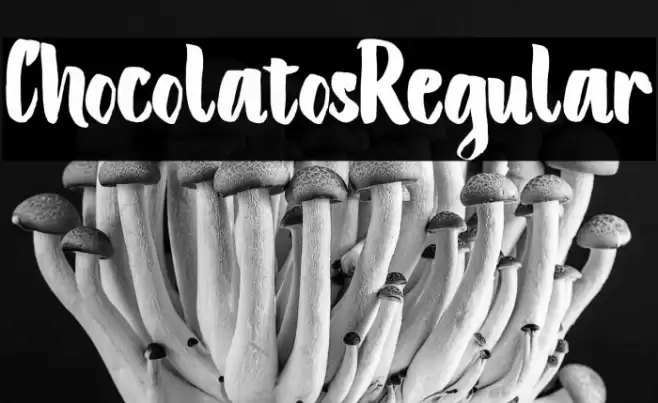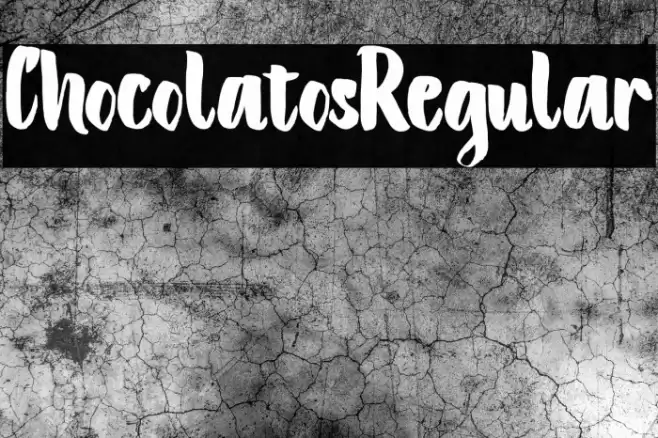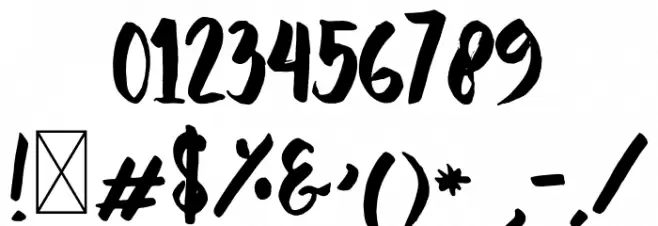
ChocolatosRegular Font
ChocolatosRegular Description
This font features a bold and expressive handwritten style, characterized by thick, flowing strokes that convey a sense of creativity and dynamism. The uppercase letters are robust and slightly irregular, adding a playful touch, while the lowercase letters maintain a consistent fluidity that enhances readability. The numerals and special characters follow the same stylistic approach, ensuring a cohesive look across all text elements. This font's artistic flair makes it suitable for projects that require a personal and informal touch.
A bold, expressive handwritten font with thick, flowing strokes from Uncategorized fonts.
- Proposed Projects: Ideal for branding, packaging design, posters, and creative invitations.